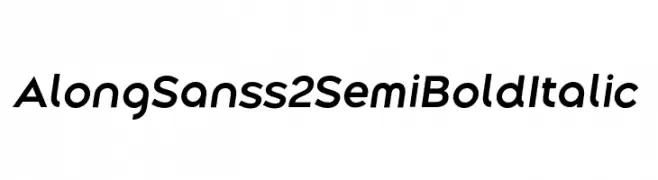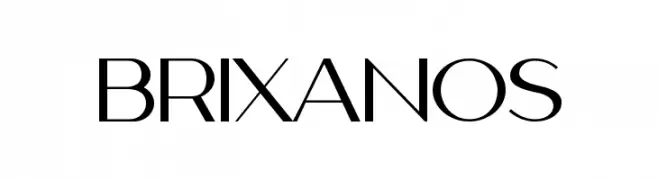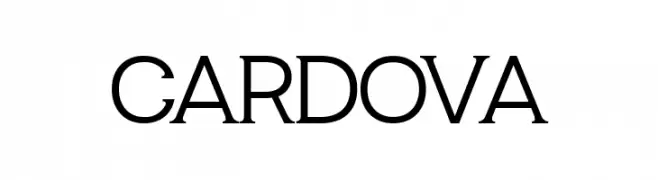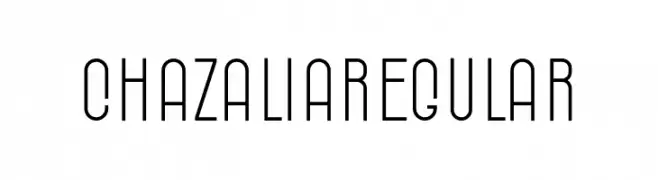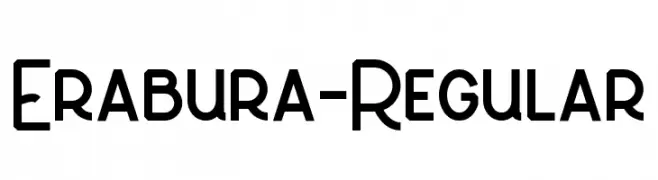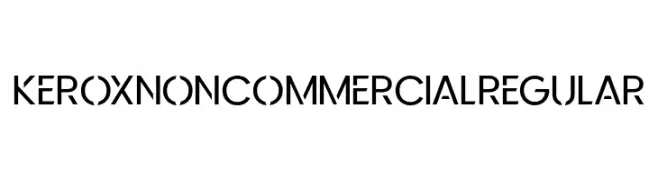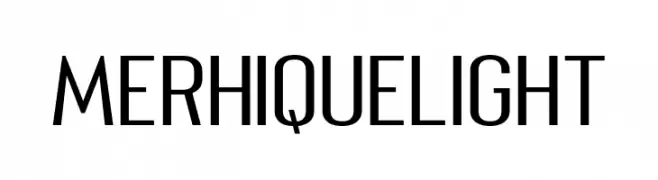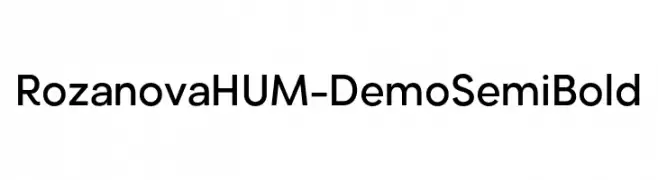
A modern, geometric font with bold, clean lines and a professional appearance.
A modern, semi-bold sans-serif font with clean lines and balanced proportions.
A modern, semi-bold italic typeface with clean lines and versatile design.
A modern, light sans-serif font with a sleek and professional appearance.
A bold, geometric sans-serif font with a modern and professional style.
A sleek, modern font with elongated, narrow characters and a minimalist design.
A modern, geometric font with a clean and professional appearance.
A modern, geometric sans-serif font with clean lines and a professional look.
A modern, geometric sans-serif font with uniform strokes and a sleek appearance.
A modern, italicized font with clean lines and a professional appearance.